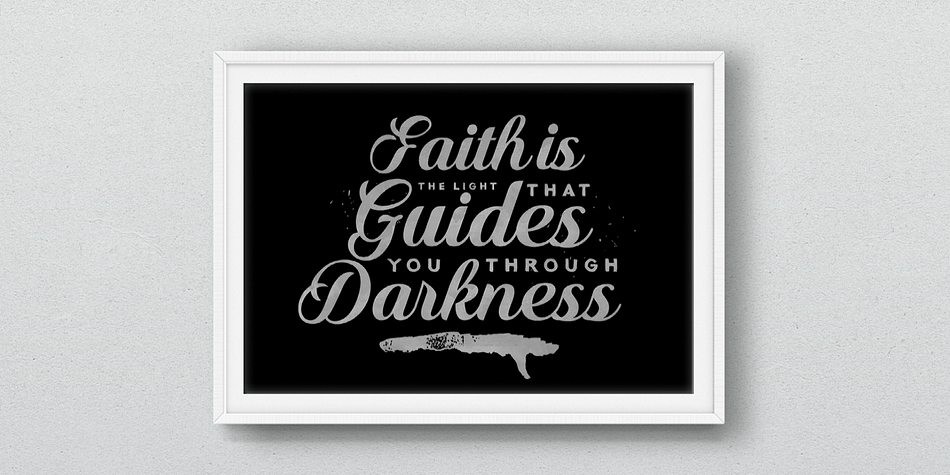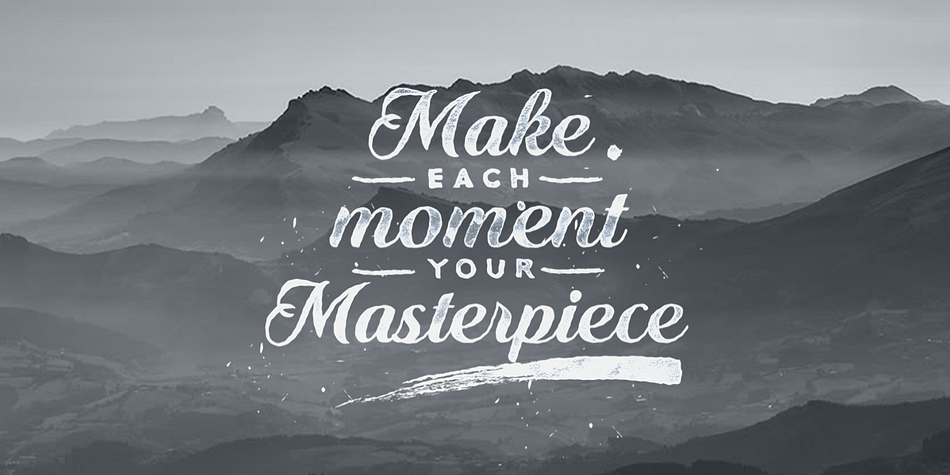
Designed by Måns Grebäck, Quincho Script is a brush script font published by Aring Typeface AB.
Quincho Script is a high quality calligraphic font, clean with bold characteristics.